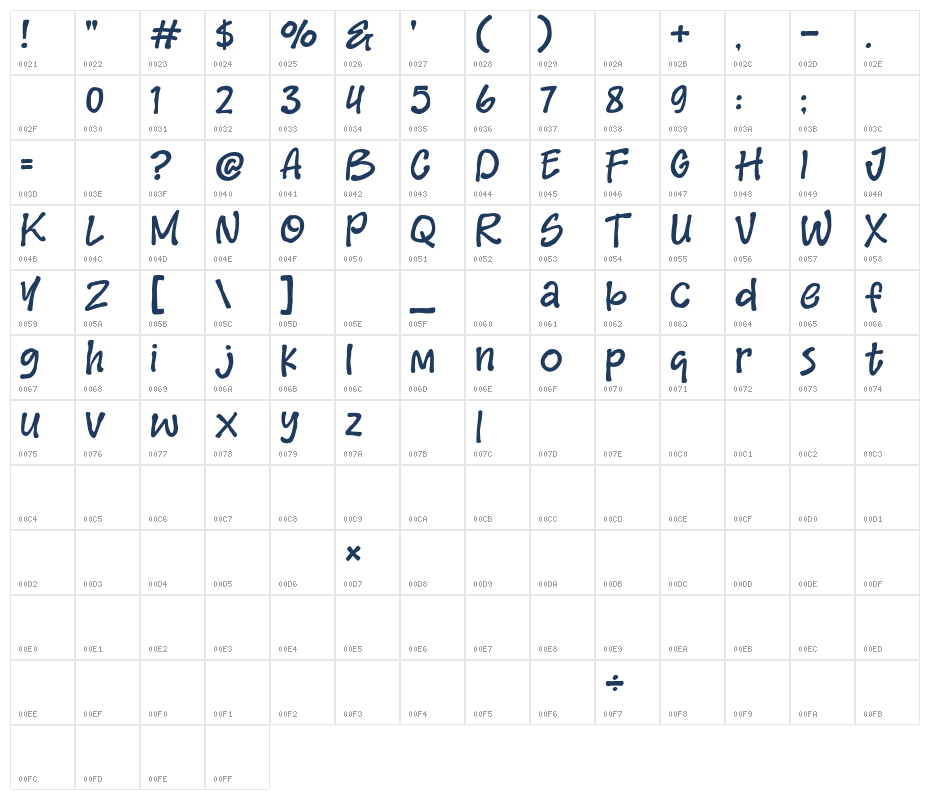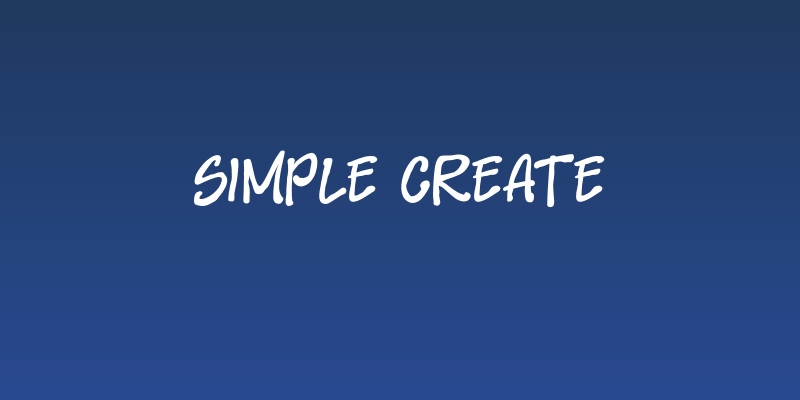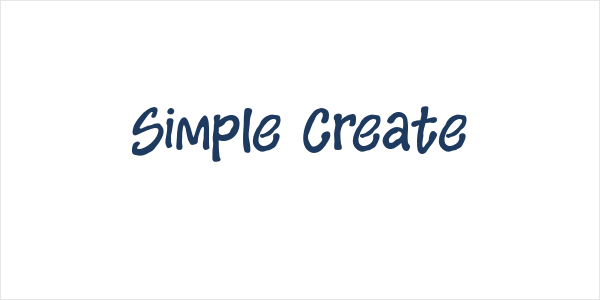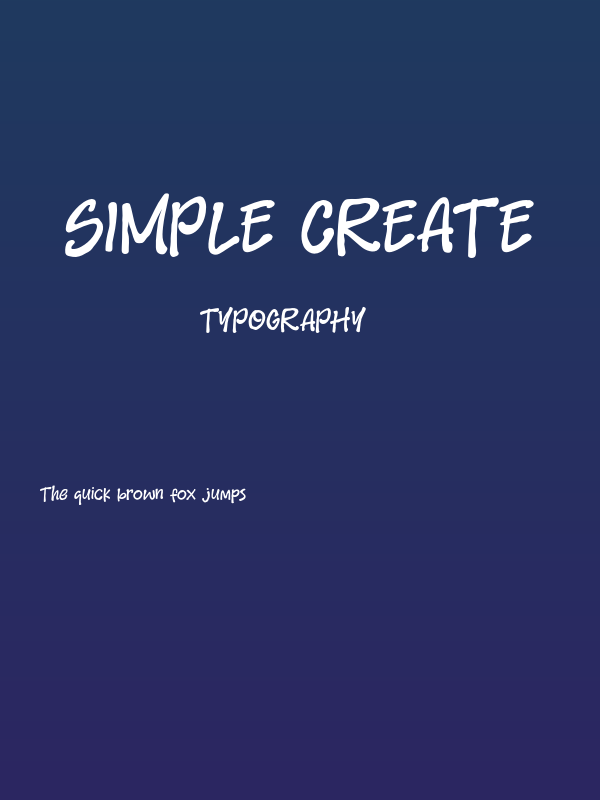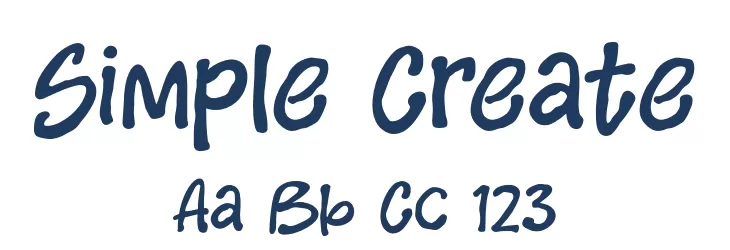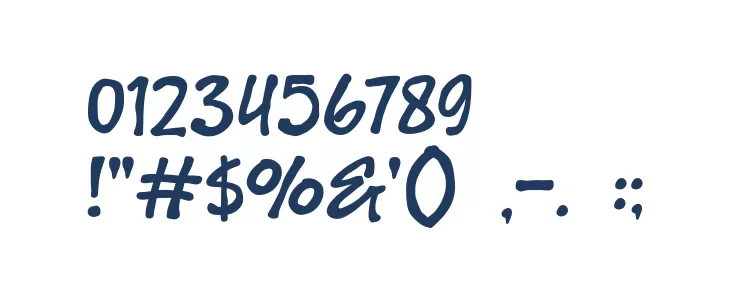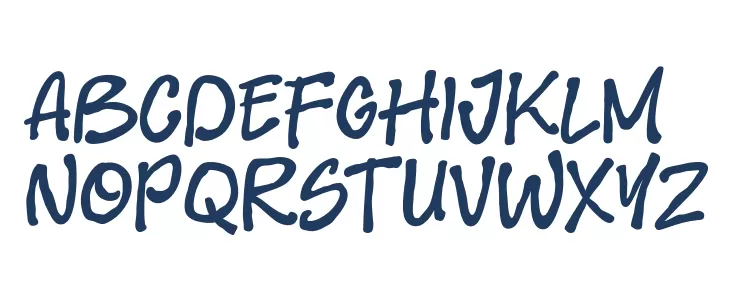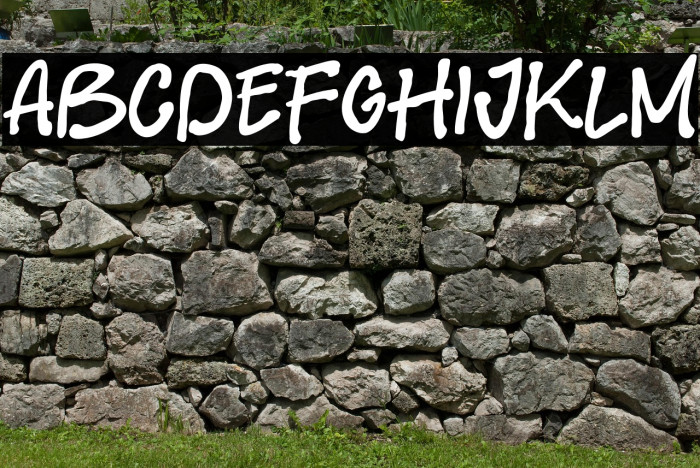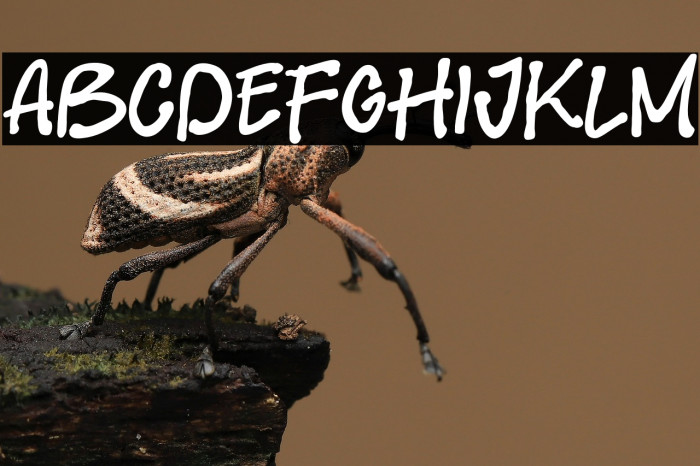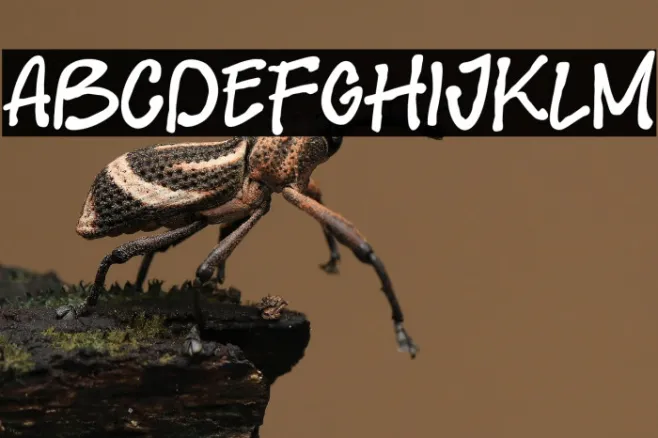
Simple Create Font
Simple Create Description
A casual, handwritten script font with a playful and informal style, featuring slightly irregular strokes and a smooth flow.
| Overall Style | Casual, Friendly, Informal |